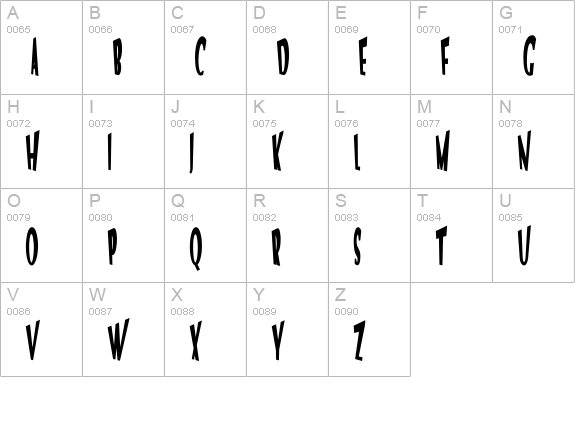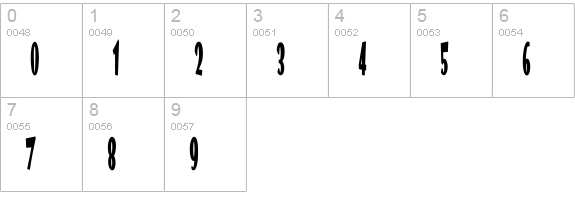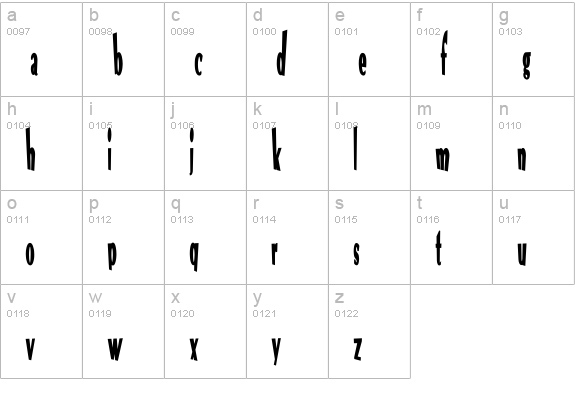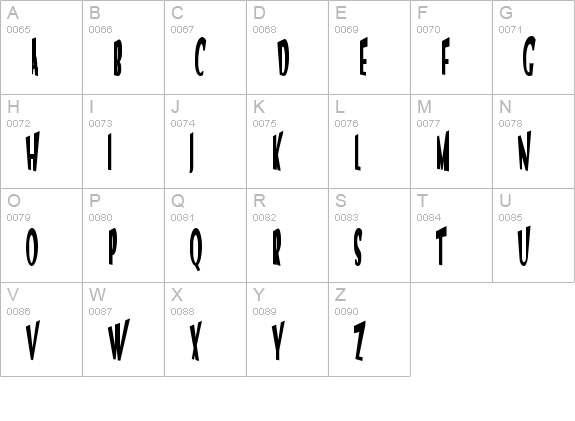
VTC Optika Bold Font Details
VTC Optika Bold is a strong, high-contrast variant in the VTC typeface family \xE2\x80\x94 well suited to headlines, attention-grabbing titles, and strong calls-to-action.
VTC Optika Bold is a striking and robust font that exudes confidence and modernity. Its bold weight commands attention and makes a bold statement in any design project. The strong and sturdy letterforms are carefully crafted with clean lines and sharp angles, giving it a contemporary edge. With its versatile nature, VTC Optika Bold is suitable for a wide range of design applications. Whether it's for headlines, logos, posters, or branding materials, this font will effortlessly elevate your designs to new heights. Its boldness and clarity ensure maximum readability, even at smaller sizes, making it perfect for both print and digital media. One of the best features of VTC Optika Bold is that it is freely available to download at FontsMarket.com. This means that designers and creatives can access this incredible font without any cost, allowing for unlimited creative possibilities. Its availability for free makes it an excellent choice for those on a budget or anyone looking to add a touch of modern sophistication to their projects. The character set of VTC Optika Bold is extensive, including uppercase and lowercase letters, numerals, punctuation marks, and special characters. This comprehensive range ensures that you have all the tools you need to create stunning and cohesive designs. Overall, VTC Optika Bold is a powerful and visually captivating font that will make a lasting impression. Its boldness, combined with its versatility and availability as a free download, makes it an essential addition to any designer's font library. So don't miss out on this amazing opportunity to enhance your designs with VTC Optika Bold, freely available at FontsMarket.com.